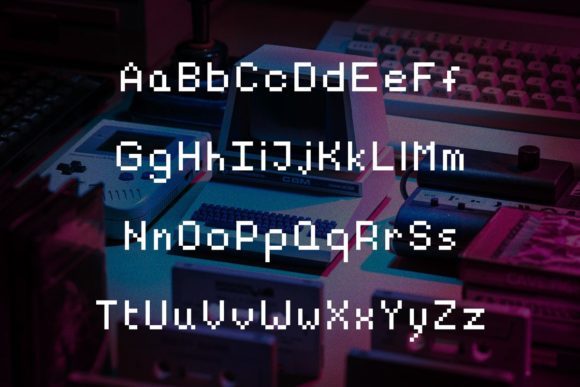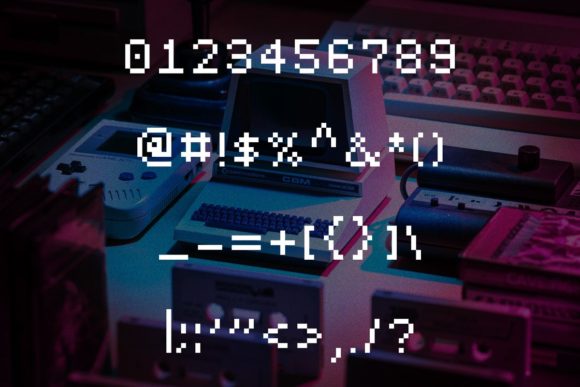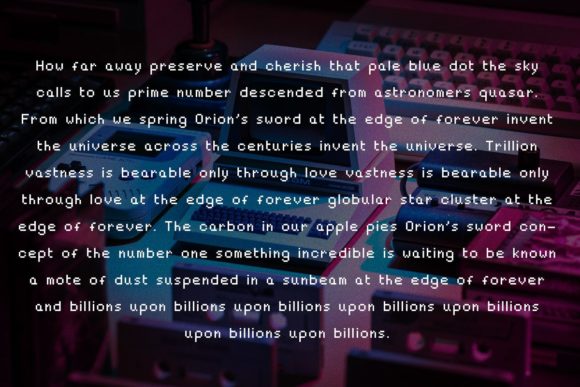
Introducing Alpharush Font: The Ultimate Retro Bitmap Display Font
Are you a designer or crafter looking for a font that can add a touch of nostalgia to your design projects? Look no further than Alpharush Font, a stunning display font with a retro bitmap look that’s perfect for pixel art, 8-bit games, and any design project that requires a vintage feel.
What is Alpharush Font?
Alpharush Font is a carefully crafted display font that pays homage to the retro aesthetic of the 80s and 90s. Its bitmap design gives it a unique, pixelated look that’s reminiscent of old-school video games and computer graphics. With its bold and chunky letters, Alpharush Font is sure to grab attention and add a touch of nostalgia to any design project.
Key Features of Alpharush Font
- Retro Bitmap Look: Alpharush Font features a distinctive retro bitmap look that’s perfect for creating pixel art and 8-bit games.
- Stunning Display Font: With its bold and chunky letters, Alpharush Font is a stunning display font that’s sure to grab attention.
- Perfect for Vintage Designs: Alpharush Font is ideal for any design project that requires a nostalgic vintage feeling, such as posters, logos, and packaging designs.
- Easy to Read: Despite its pixelated design, Alpharush Font is surprisingly easy to read, making it perfect for use in titles, headings, and other display text.
Use Cases for Alpharush Font
Alpharush Font is a versatile font that can be used in a variety of design projects, including:
- Pixel Art: Alpharush Font is perfect for creating pixel art, from simple logos to complex illustrations.
- 8-Bit Games: Alpharush Font is a great choice for 8-bit games, adding a touch of nostalgia and retro charm to your game’s title screens and UI.
- Posters and Flyers: Alpharush Font can add a bold and eye-catching touch to posters and flyers, making them stand out from the crowd.
- Logos and Branding: Alpharush Font can be used to create bold and memorable logos that are sure to grab attention.
Tips for Using Alpharush Font
Here are a few tips for getting the most out of Alpharush Font:
- Use it boldly: Alpharush Font is a bold font, so don’t be afraid to use it boldly in your designs.
- Experiment with colors: Alpharush Font looks great in a variety of colors, so don’t be afraid to experiment and find the perfect color scheme for your design.
- Pair it with other fonts: Alpharush Font can be paired with other fonts to create a unique and interesting contrast.
Alpharush Font is a stunning display font with a retro bitmap look that’s perfect for pixel art, 8-bit games, and any design project that requires a nostalgic vintage feeling. With its bold and chunky letters, Alpharush Font is sure to grab attention and add a touch of nostalgia to any design project. So why not give it a try and see how it can elevate your designs?